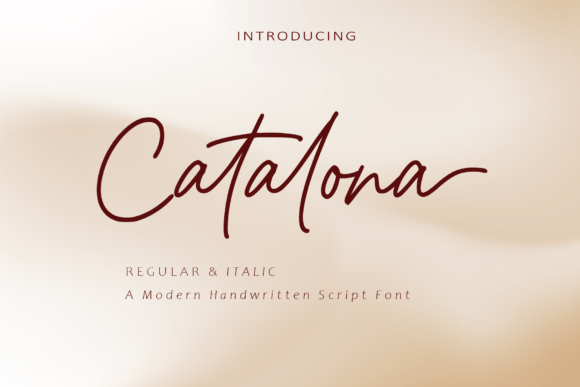
The Quest for the Perfect Handwritten Font: Discovering Catalona
I still remember the design project that led me to Catalona Font. I was working on a wedding invitation design, and my client specifically asked for a beautiful, natural, and charming handwriting feel. I scoured the internet for the perfect font, but nothing seemed to fit the bill. That was until I stumbled upon Catalona Font. ✨
Catalona is a handwritten script typeface that has become my go-to for projects that require a personal touch. In this article, I’ll share my experience with Catalona, its features, and how to make the most of it in your designs.
An Honest Review of Catalona Font
- ✨ Beautiful and natural handwriting feel
- ✅ Comes in Regular and Italic styles
- ✅ Equipped with ligature, beginning and ending tail
- ✅ Perfect for branding projects, logos, wedding designs, social media posts, and more
- ✅ PUA encoded for easy access to glyphs and ligatures
While Catalona Font is amazing, there are a few things to keep in mind: 🤔
- ⚠️ Limited character set compared to some other fonts
- ⚠️ May not be suitable for very large or very small font sizes
The Story Behind Catalona Font
Catalona Font was created by a team of expert typographers who wanted to craft a beautiful and natural handwritten font. The font is inspired by the art of handwriting and the unique characteristics of individual handwriting styles. 💫
Q: Is Catalona Font suitable for body text?
A: While Catalona Font is beautiful, it’s best suited for headlines and titles. For body text, a clearer font may be more suitable.